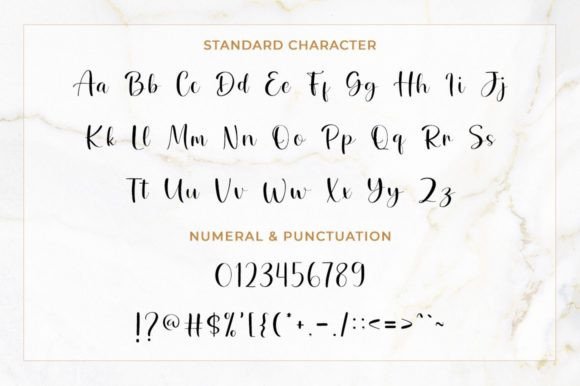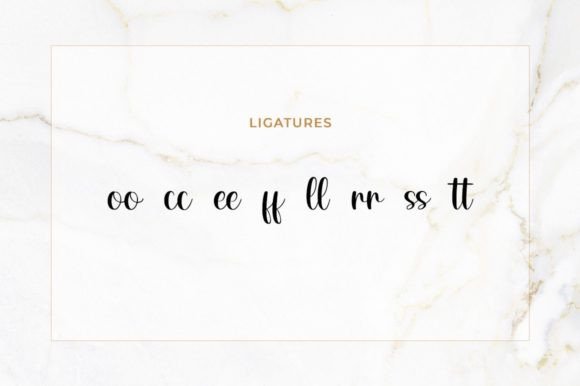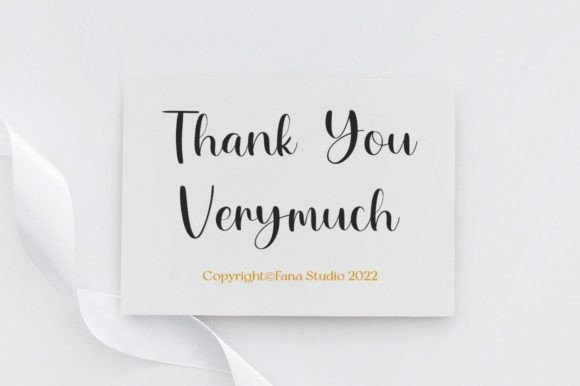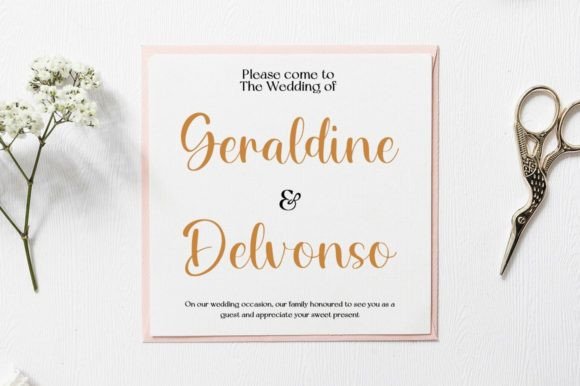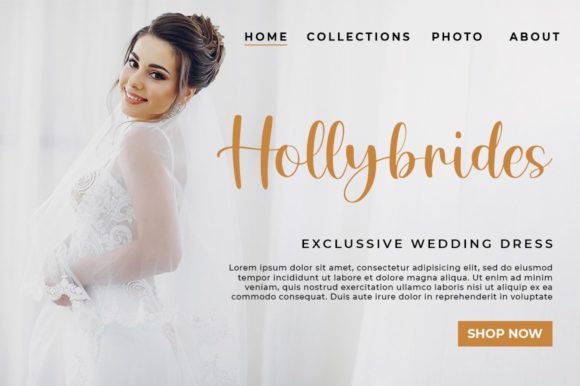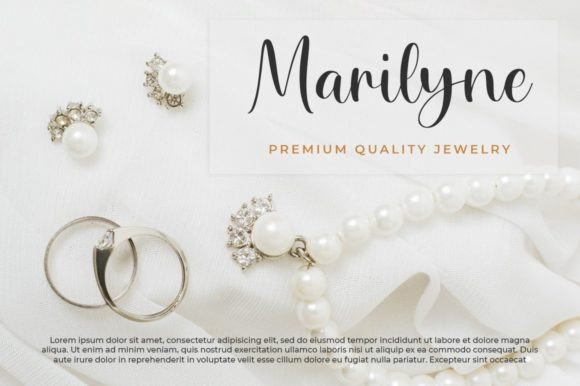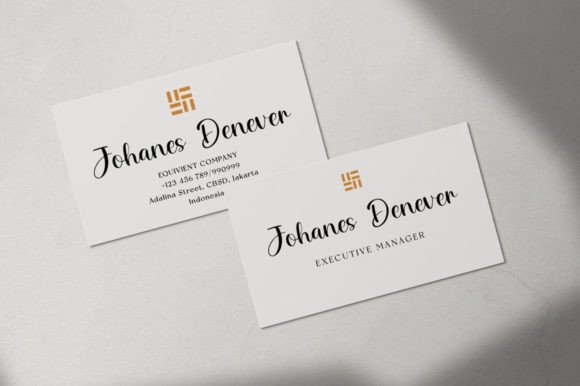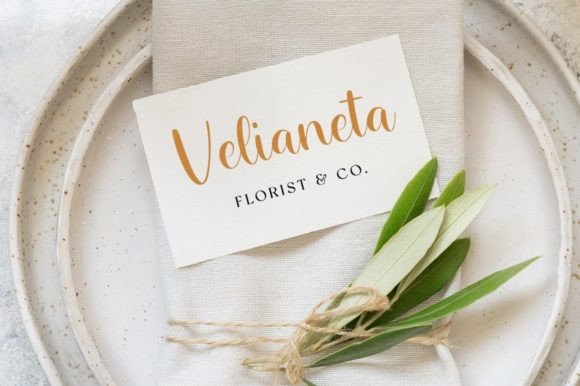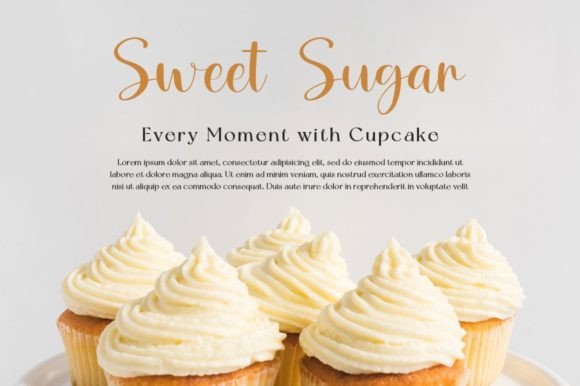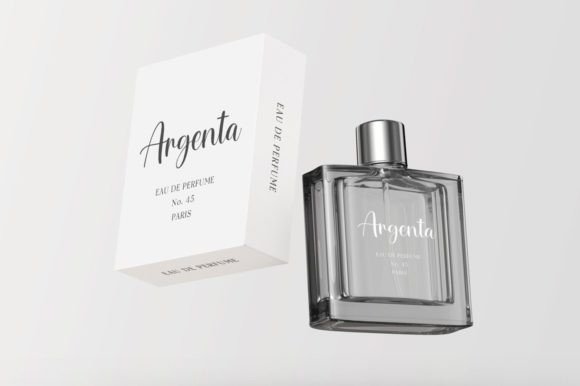
Sprightly Font
About Sprightly Font
The Sprightly script font is a stunning addition that brings a personalized touch to your latest art project, offering an elegant, classy, and modern look. With its gorgeous typography, this font is well-suited for a diverse range of projects, including logos and branding, invitations, stationery, wedding designs, social media posts, advertisements, product packaging, product designs, labels, photography watermarks, special events, or any creative endeavor that requires a tasteful handwriting aesthetic.
What sets the Sprightly script font apart is its ability to add a touch of sophistication to a variety of design applications. The elegant and modern appearance of the script makes it a versatile choice, elevating the visual appeal of your projects and giving them a refined quality.
The PUA encoding of the Sprightly script font is a valuable feature, allowing easy access to a wealth of amazing glyphs and ligatures. This encoding ensures that designers can effortlessly incorporate the font’s unique elements, enabling creative customization and personalization. Whether you’re crafting a logo, designing invitations, or creating social media posts, Sprightly provides the flexibility to enhance your projects with a handwritten taste.
In summary, the Sprightly script font is more than just a typographic tool; it’s a design asset that enhances the elegance of your creative endeavors. Embrace its modern and classy aesthetic, and witness how it transforms your projects into visually striking and tastefully crafted works of art. With its PUA encoding, the Sprightly script font offers a seamless and enjoyable experience for exploring its impressive range of glyphs and ligatures, making your designs truly stand out.